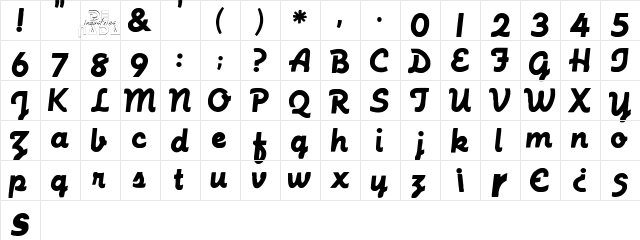
MachineScript Regular
Design Context for MachineScript Typeface
MachineScript flows with the natural rhythm of handwritten lettering, making it ideal for designs that call for warmth and personal expression.
Font Pairing: Combine MachineScript with a simple geometric sans for maximum contrast — the tension between flowing curves and clean structure is a classic typographic pairing.
Pro Tip: Use MachineScript for short runs of text — names, titles, or taglines. Extended body copy in script faces tires the eye quickly.